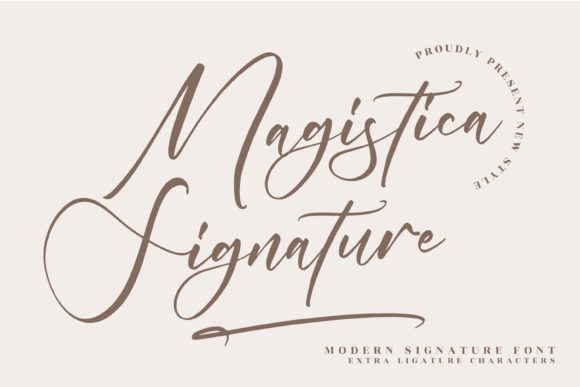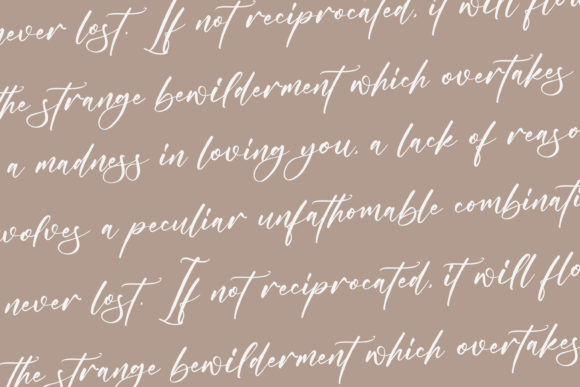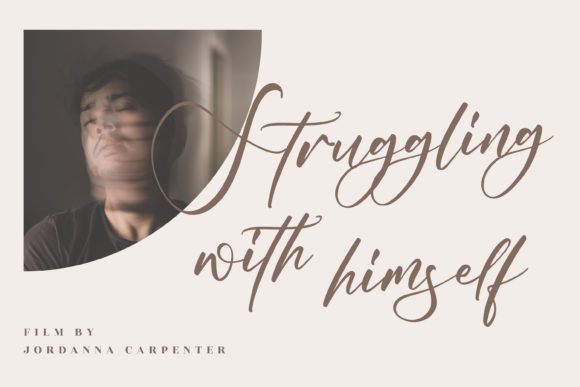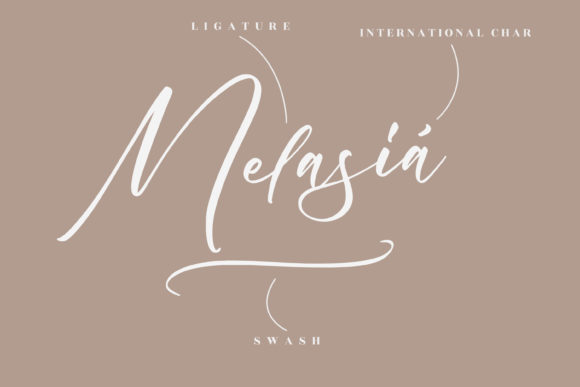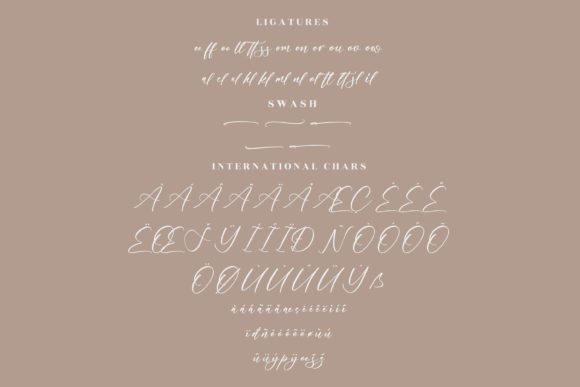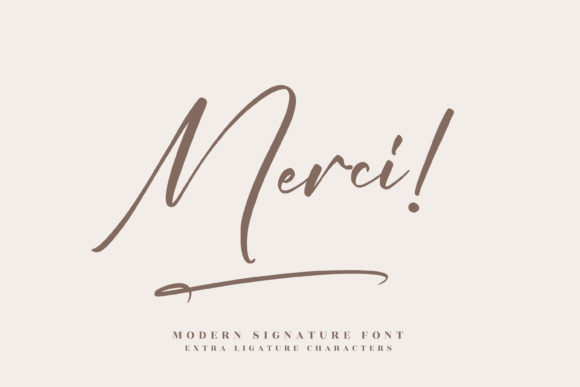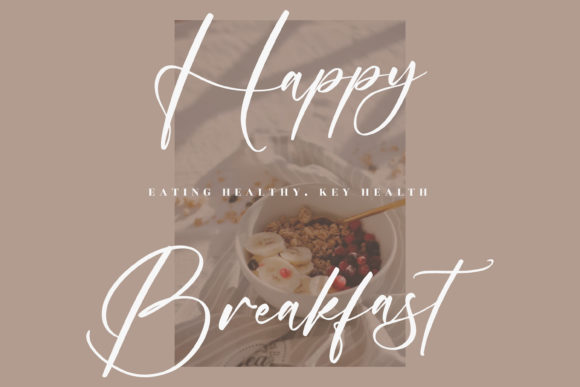
Magistica Signature Font
About Magistica Signature Font
Magistica Signature is a thin lettered and graceful script font. Fall for its ravishing style and use it to create gorgeous designs! This font is PUA encoded which means you can access all glyphs and swashes with ease!